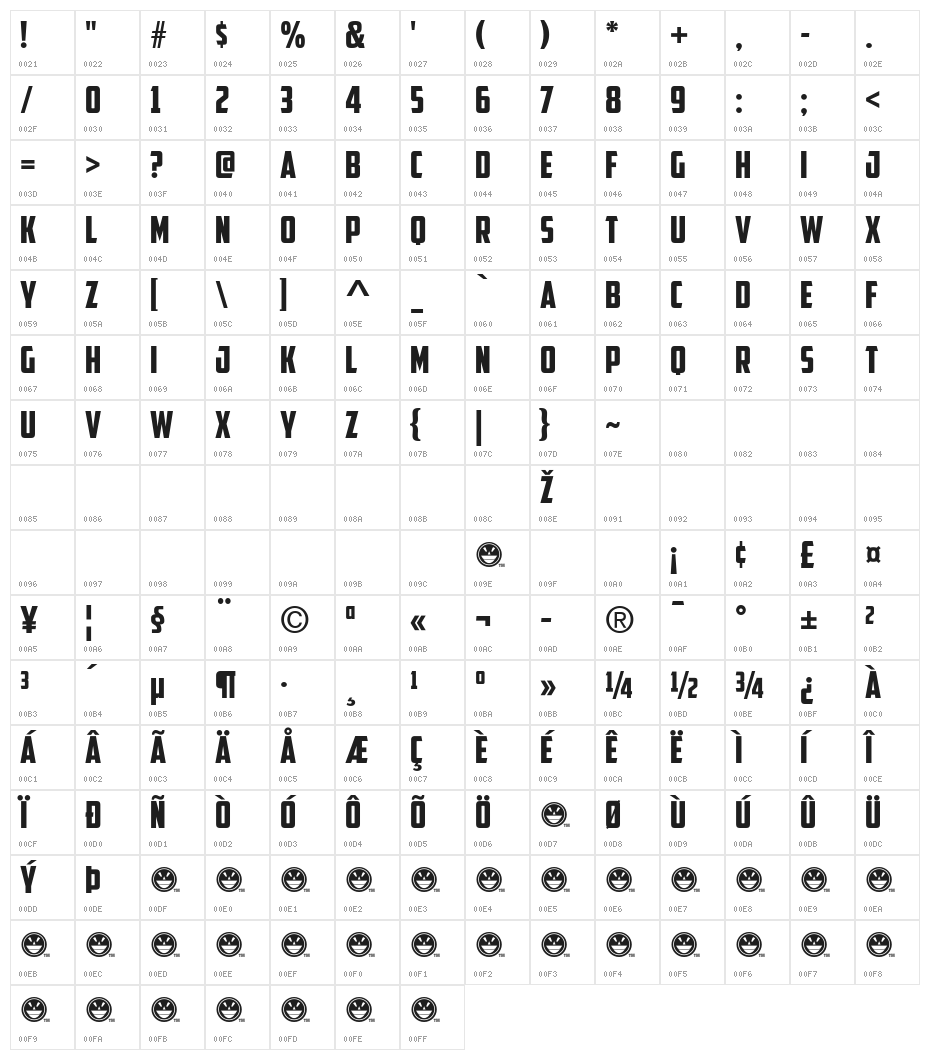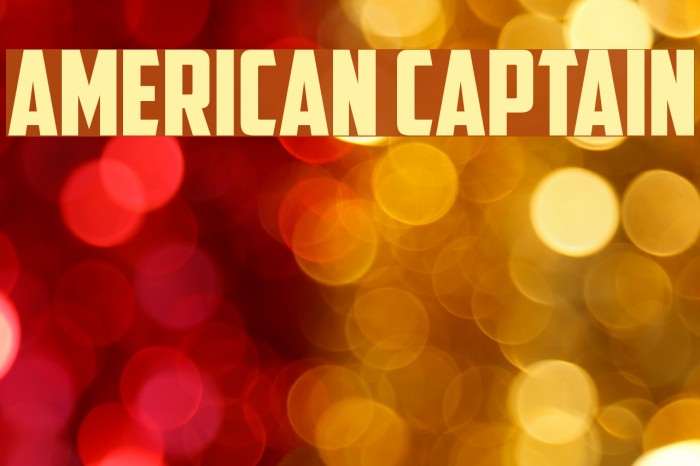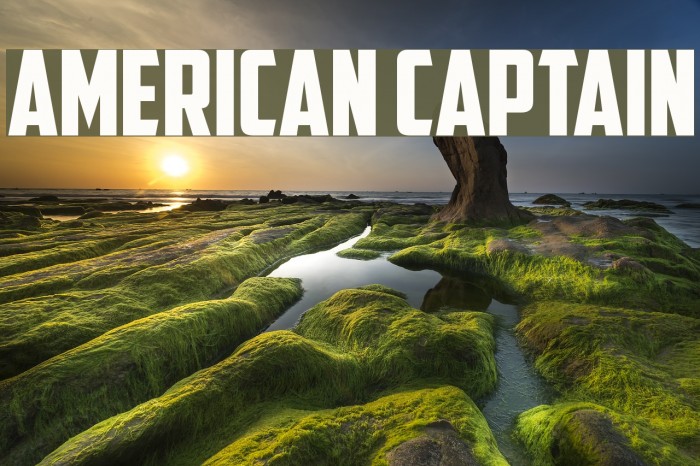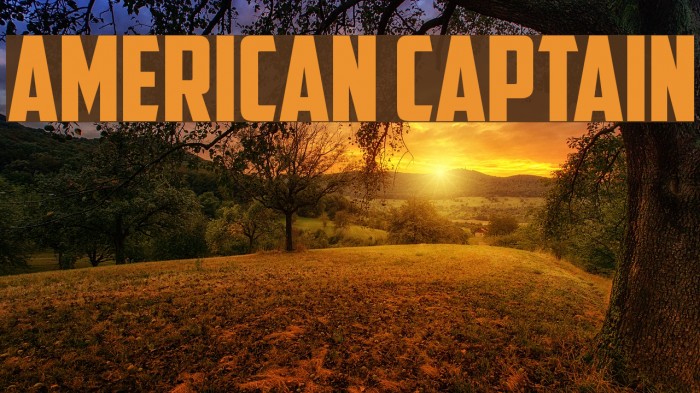
American Captain Font
American Captain Description
This font features a bold and impactful design, characterized by its strong geometric shapes and uniform stroke widths. The uppercase letters are particularly striking, with a blocky and robust appearance that commands attention. The numbers and special characters maintain this bold aesthetic, ensuring consistency across all glyphs. The font's design is reminiscent of classic Americana, evoking a sense of strength and reliability. Its clean lines and lack of ornamentation make it highly legible, even at smaller sizes, while its boldness ensures it stands out in larger formats.
| Proposed Projects | Ideal for posters, headlines, branding, and any project requiring a bold, attention-grabbing typeface. |